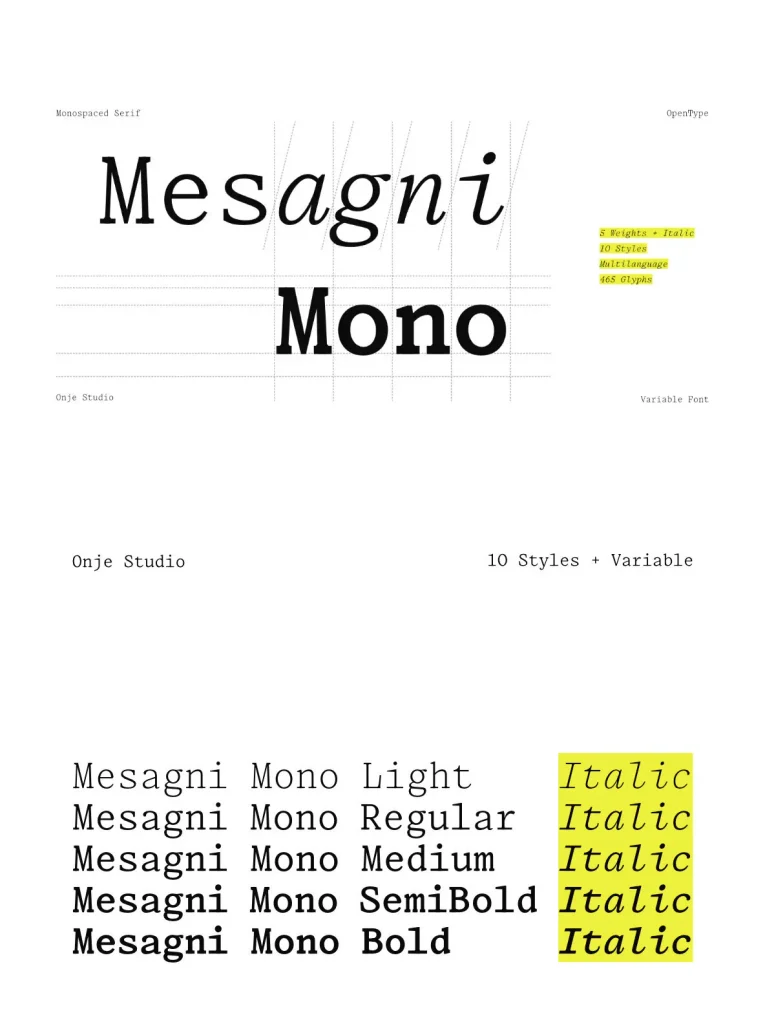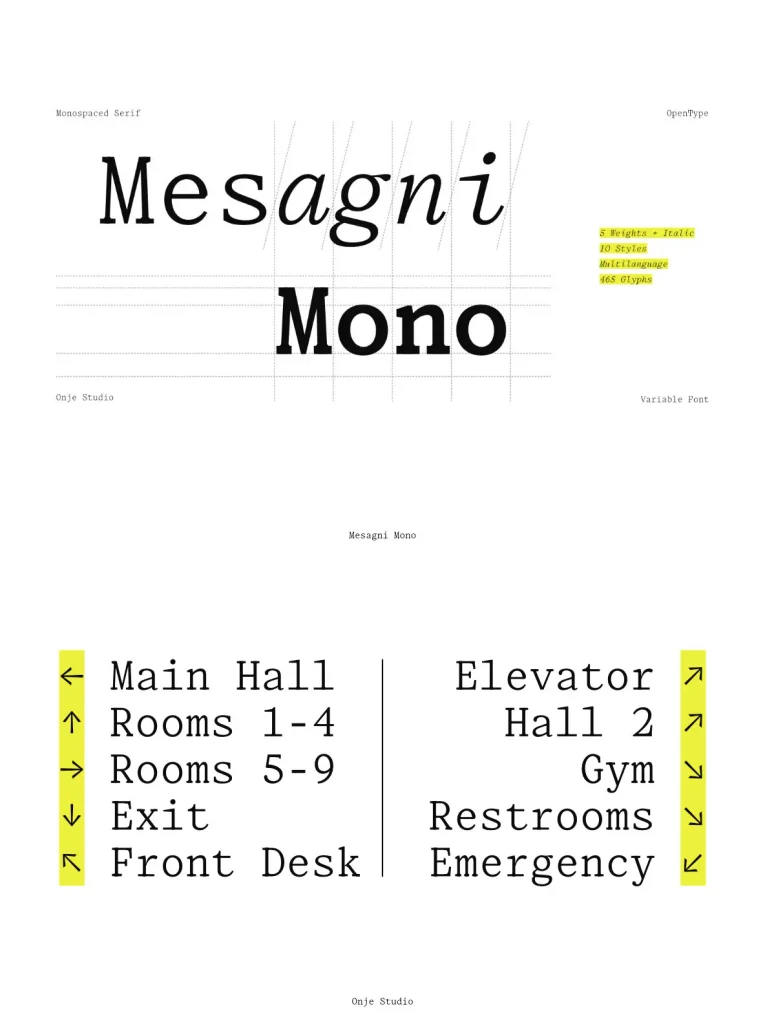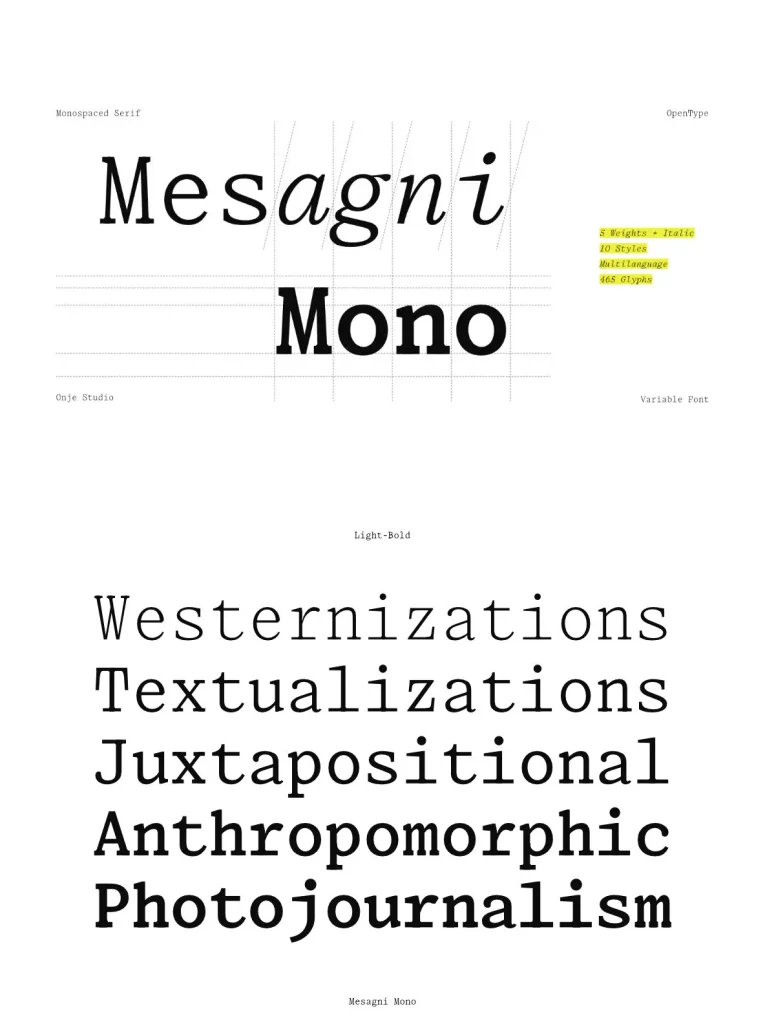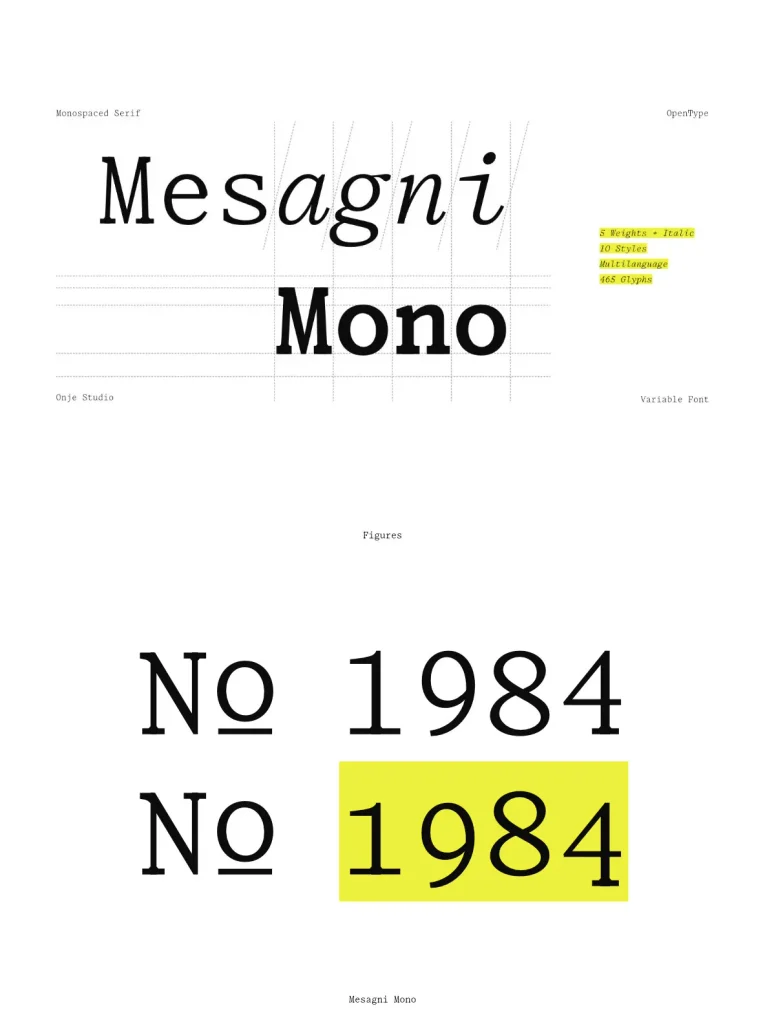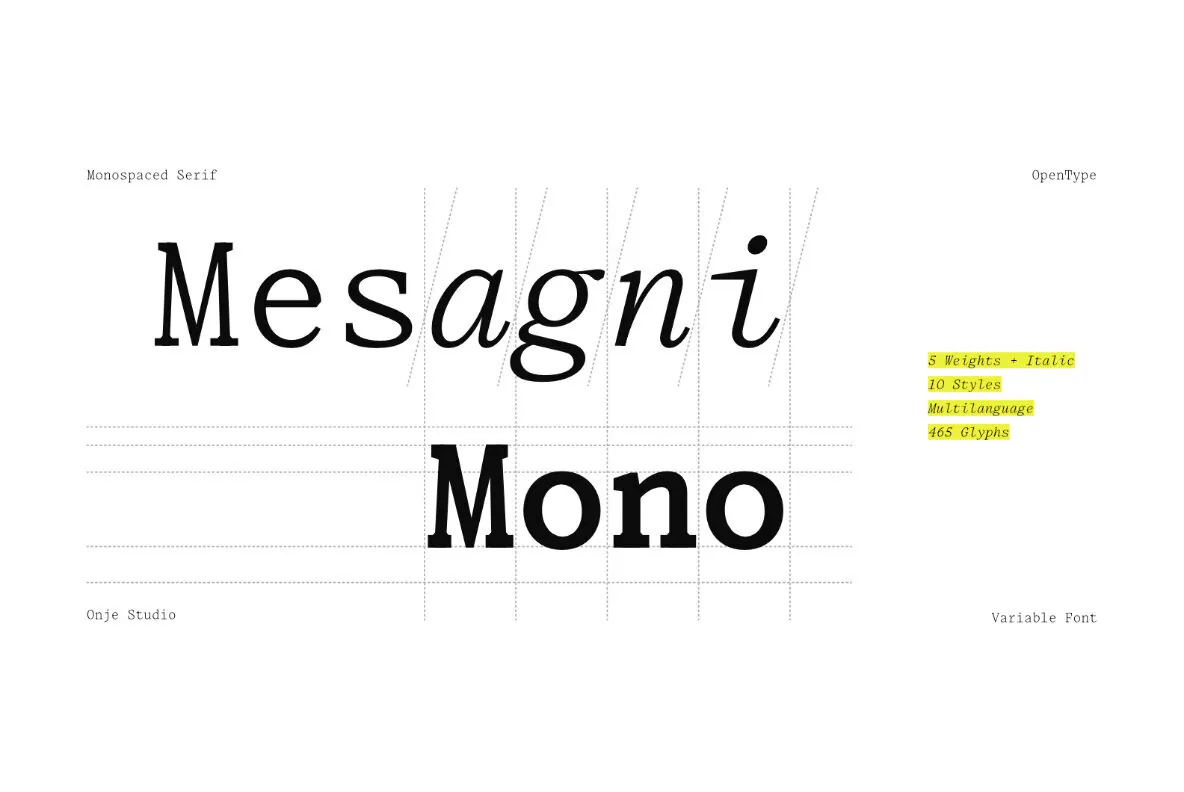
Mesagni Mono — Humanist Code Rhythm
Mesagni Mono is the monospaced version of Mesagni Text. It keeps the humanist features of the original while bringing a print-minded aesthetic to digital screens. Its fixed width and slightly adjusted optical stems support clearer reading at smaller sizes, where rhythm, spacing, and consistency matter.
Built to remain functional as an editorial typeface, Mesagni Mono offers a wide range of styles for broader typographic contexts. It suits web design projects, technical documentation, coding environments, and even screenplay settings, giving designers a refined monospaced font with both structure and warmth.
Features
465 Glyphs
10 Styles + Variables (Roman & Italic)
90+ Language Supported
OpenType Features
Small Cap
Superscript
Numerator
Denominator
Fraction
Oldstyle Figure
Ligature
Accent